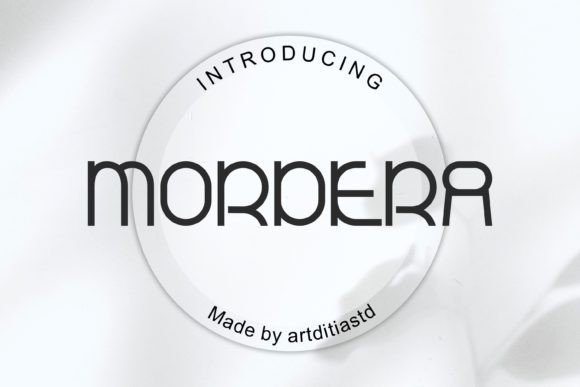
Prepare to be captivated by the irresistible charm of the Mordera font family, an exquisite collection of all-caps display fonts that embody the epitome of friendliness and warmth. Designed by the ingenious artditiastd, Mordera fonts possess an unparalleled ability to transform your creative endeavors into captivating masterpieces.
Unleash your imagination as you explore the boundless possibilities offered by Mordera fonts. Whether you seek to craft handmade treasures, breathe life into digital designs, elevate presentations, or create heartfelt greeting cards, Mordera fonts will effortlessly become your trusted companion, ready to add a touch of magic to every occasion.
Immerse yourself in the world of Mordera fonts and discover a treasure trove of typographic wonders. Each font exudes a unique personality, from the playfully charming to the elegantly sophisticated. Let Mordera fonts guide you on a journey of creativity, transforming your words into captivating works of art.
With Mordera fonts at your fingertips, you'll never run out of inspiration. Their versatility knows no bounds, making them the perfect choice for a myriad of projects. Whether you're a seasoned designer or just starting your creative adventure, Mordera fonts will empower you to express yourself with flair and originality.
So why settle for ordinary when you can embrace the extraordinary? Dive into the enchanting world of Mordera fonts today and let your creativity soar. With their irresistible charm and endless possibilities, Mordera fonts will captivate your audience and leave a lasting impression.